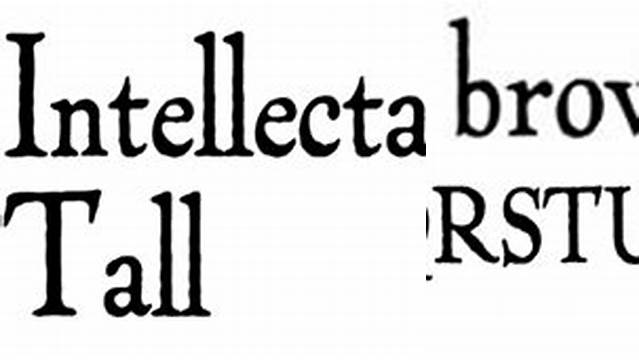
Introduction: Discovering the Elegance of Intellecta Roman Tall Font
Hey guys! Are you on the hunt for a font that screams classic elegance with a modern twist? Let's dive into the world of Intellecta Roman Tall Font, a typeface that's been capturing the hearts of designers and typographers alike. In this comprehensive guide, we're going to explore everything you need to know about this stunning font, including its history, key features, and, most importantly, where you can snag it for free.
Intellecta Roman Tall Font isn't just another typeface; it's a journey through the annals of typography, blending the timeless appeal of Roman letterforms with a distinctive tall and slender profile. This unique combination makes it an excellent choice for a wide array of design projects, from branding and advertising to editorial design and digital content. Its versatility shines through in both print and digital mediums, making it a staple in the toolkit of many creative professionals. When you start incorporating it into your projects, you'll quickly see how its elegant lines and sophisticated presence can elevate your work. This font doesn’t just fill space; it commands attention and conveys a sense of refined taste and historical depth. Imagine the impact it can have on your designs, whether you're crafting a logo, designing a book cover, or creating website headers. It’s a font that speaks volumes without uttering a word, a subtle yet powerful tool that can transform the ordinary into the extraordinary.
The beauty of Intellecta Roman Tall lies not only in its aesthetic appeal but also in its functional design. The tall, narrow characters create a vertical emphasis that is both striking and space-saving. This is particularly useful in designs where you need to convey a lot of information without sacrificing readability or visual appeal. The font's clean lines and well-balanced letterforms ensure that it remains legible even at smaller sizes, making it suitable for body text as well as headlines. Moreover, its distinct personality adds a touch of character to any project, setting it apart from more generic typefaces. Whether you're working on a project that requires a vintage feel or something with a modern edge, Intellecta Roman Tall can adapt seamlessly. Its timeless quality ensures that it will remain a relevant and stylish choice for years to come. So, as we delve deeper into this guide, get ready to discover all the nuances and possibilities this font offers.
What Makes Intellecta Roman Tall Font Unique?
So, what is it about the Intellecta Roman Tall Font that sets it apart from the crowd? This font family boasts a unique blend of historical inspiration and modern design sensibilities, making it a standout choice for any project aiming for a touch of class and sophistication. The tall, slender characters are the hallmark of this typeface, lending a sense of verticality and elegance that's hard to ignore. But there's more to it than just aesthetics; the thoughtful design behind each letter ensures optimal readability, making it a practical choice for both headlines and body text. Whether you're designing a sleek website or a classic book cover, Intellecta Roman Tall Font brings a distinctive character that enhances your work.
One of the key features that makes Intellecta Roman Tall Font so unique is its versatility. It's not just a one-trick pony; this font can adapt to a variety of design contexts. Need a font that looks authoritative and professional? Intellecta Roman Tall has you covered. Want something that exudes timeless beauty and historical charm? Look no further. This font bridges the gap between classic and contemporary, making it suitable for projects ranging from wedding invitations to corporate branding. The ability to seamlessly fit into diverse design scenarios is a testament to the font's thoughtful design and adaptability. Furthermore, the tall, narrow letterforms not only contribute to its visual appeal but also make it an excellent choice for designs where space is a premium. You can convey more information without sacrificing readability or aesthetic quality, a crucial consideration in today's visually crowded world. So, if you're looking for a font that offers both style and substance, Intellecta Roman Tall Font is a worthy contender.
But the uniqueness of Intellecta Roman Tall doesn't stop at its visual appeal and versatility. The font also possesses a certain emotional quality that sets it apart. There's a sense of history and tradition embedded in its letterforms, evoking images of ancient manuscripts and classic literature. This historical resonance adds depth and meaning to your designs, making them feel more substantial and significant. At the same time, the font's clean lines and modern execution prevent it from feeling dated or stuffy. It strikes a perfect balance between the old and the new, making it a timeless choice for any project. In an age where trends come and go, Intellecta Roman Tall stands firm as a typeface that transcends fleeting fads. It's a font that speaks to the enduring power of good design, a quality that will always be in demand. So, if you're seeking a font that not only looks good but also carries a sense of history and emotion, Intellecta Roman Tall is the perfect choice to infuse your projects with character and depth.
So, go ahead and embrace the timeless appeal of Intellecta Roman Tall Font. Experiment with its versatility, explore its nuances, and let it inspire your creativity. With its unique blend of elegance and functionality, this font is sure to become a valuable addition to your design toolkit. Whether you're a seasoned professional or just starting out, Intellecta Roman Tall Font offers endless possibilities for expressing your creative vision. Happy designing, and may your fonts always be stylish and impactful!